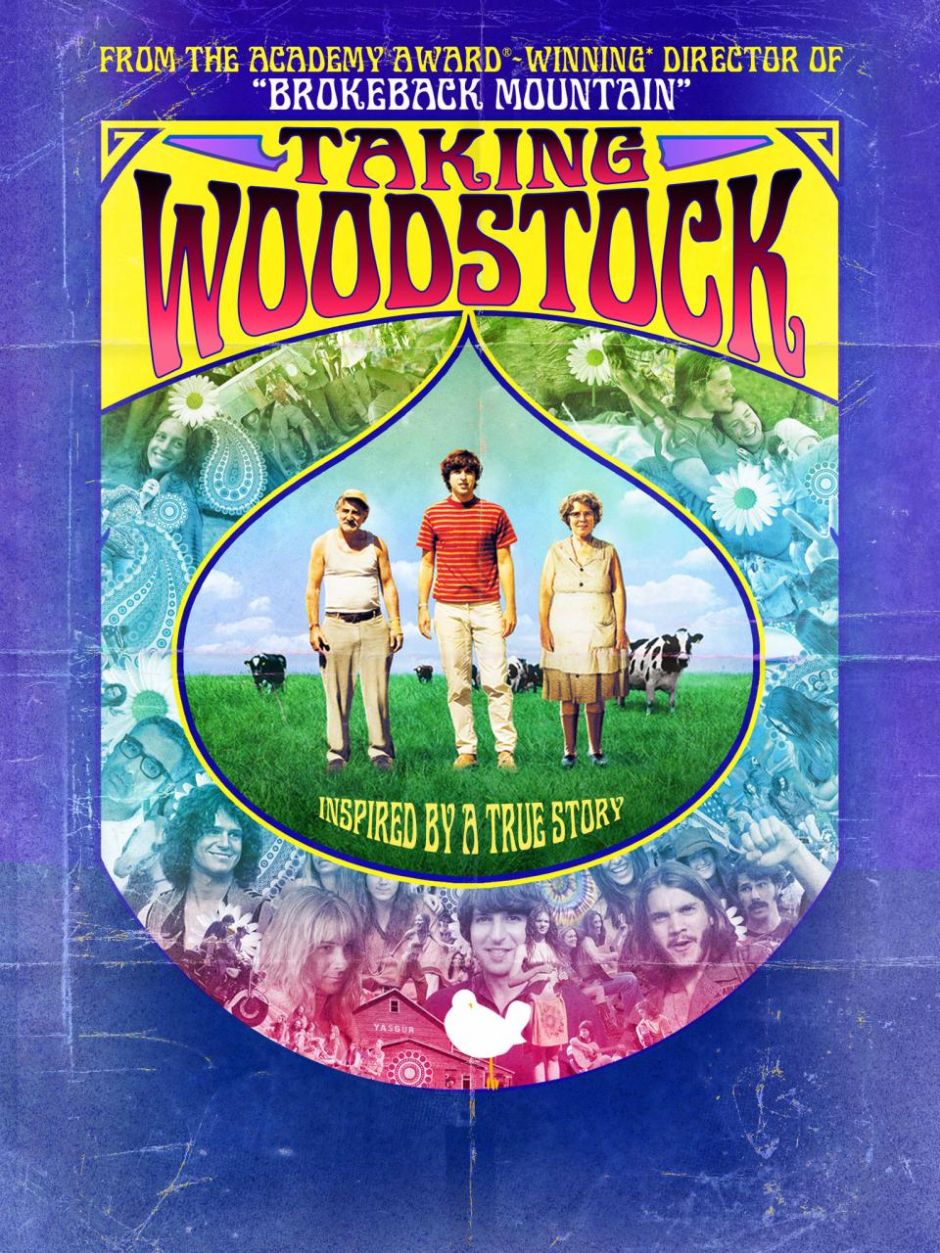
Taking Woodstock Font
ComedyTaking Woodstock is a 2009 comedy-drama film directed by Ang Lee. It tells the story of Elliot Tiber and the events that led to the legendary Woodstock Music Festival.